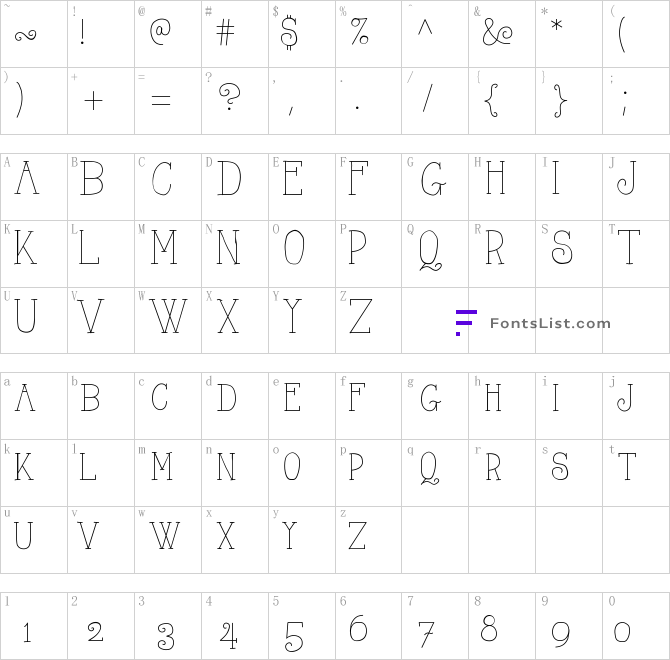
- Font Name:AlwaysHere
AlwaysHere.ttf is a very beautiful artistic font, AlwaysHere.ttf is widely used in the design and printing of various books and pictures,AlwaysHere.ttf has a strong visual impact,AlwaysHere.ttf is a commonly used font in newspapers, magazines and books, and is used in posters, e-commerce Poster design, store design, logo design, font design and other fields.AlwaysHere.